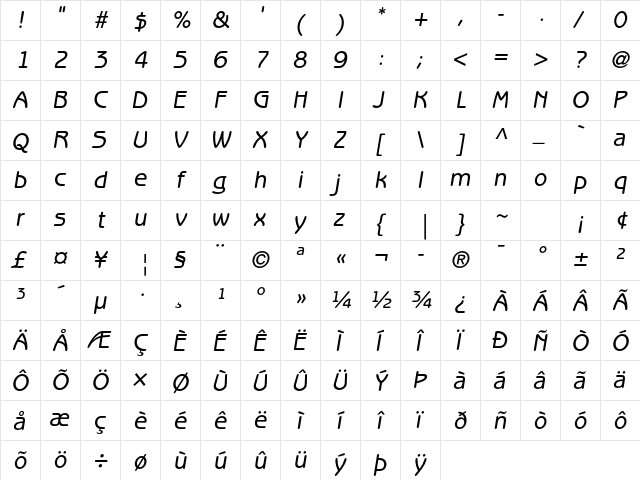
ITC Benguiat Gothic Std Medium Oblique Font Preview
ITC Benguiat Gothic Std Medium Oblique
ITC Benguiat Gothic Std Medium Oblique Font Details
| Style | Medium Oblique |
| Designer | Ed Benguiat |
Design Context for ITC Benguiat Gothic Std Typeface
ITC Benguiat Gothic Std has the quiet confidence of well-executed sans-serif typography: versatile, unobtrusive, and dependable at any size. The dynamic lean of this cut emphasises speed and emphasis in any layout.
Font Pairing: Works well alongside a characterful serif or display font that can carry the expressive load while ITC Benguiat Gothic Std handles the functional copy.
Pro Tip: Pair ITC Benguiat Gothic Std with a display or serif font for headlines — its neutral character makes it an excellent supporting player in complex typographic systems.